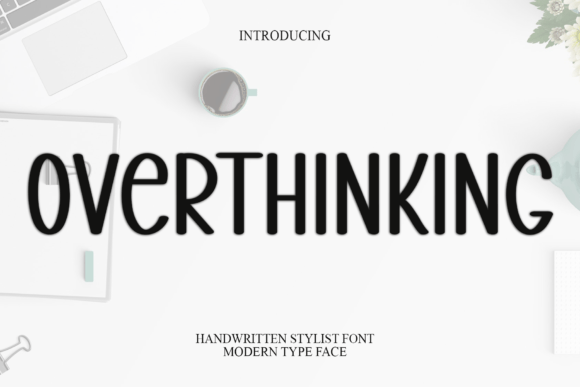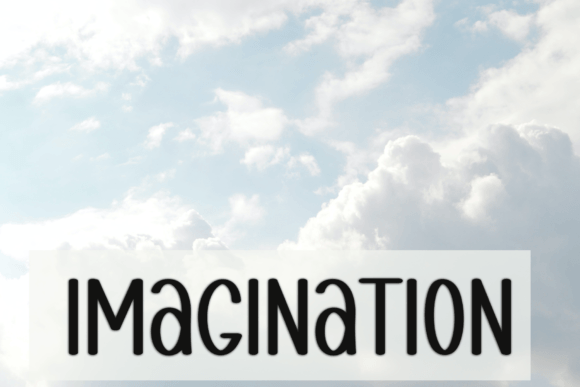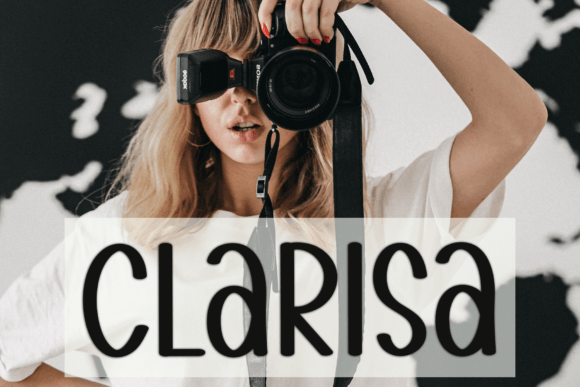
About Overthinking
Font
Overthinking is a neat and casual sans-serif font designed for clarity and readability. With its clean lines and balanced proportions, Overthinking is versatile and suitable for various design projects, from digital interfaces to print materials. Its simplicity and modern appeal make it a practical choice for communication.